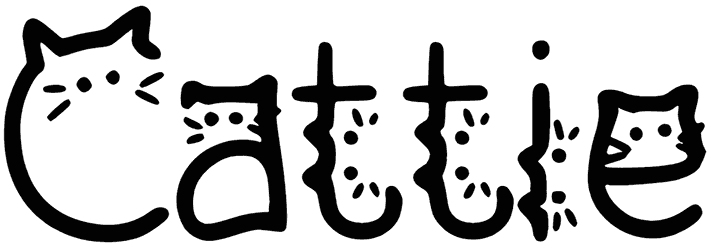
Cattie Font
If you want to put lots of cats in your cute design, this cat font will do it. Cattie consists of attractive and sweet letters that can add a refreshing form to your layouts. With a full cover of characters, this natural font would be an ideal choice for a lot of ideas, like game screens, apparel, school posters, and so forth.